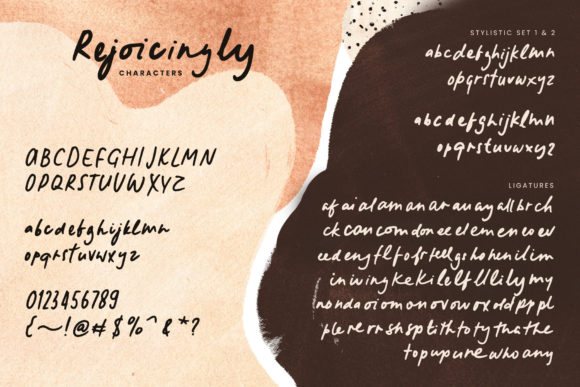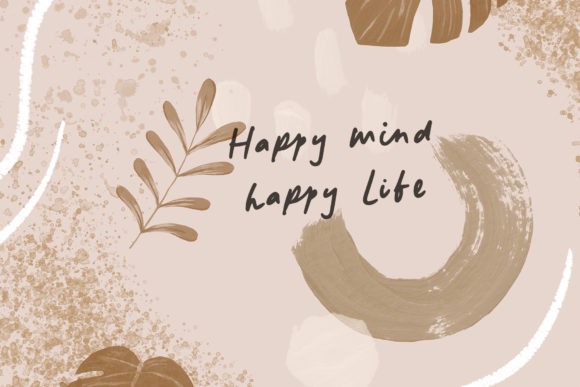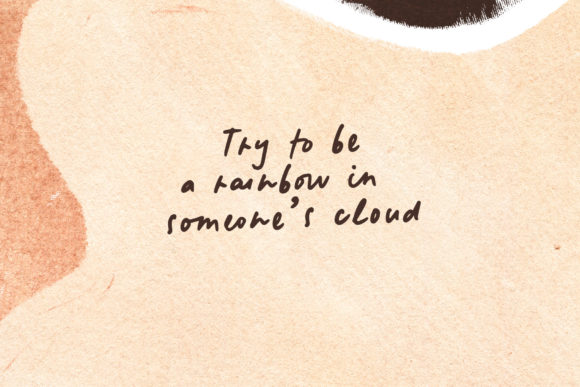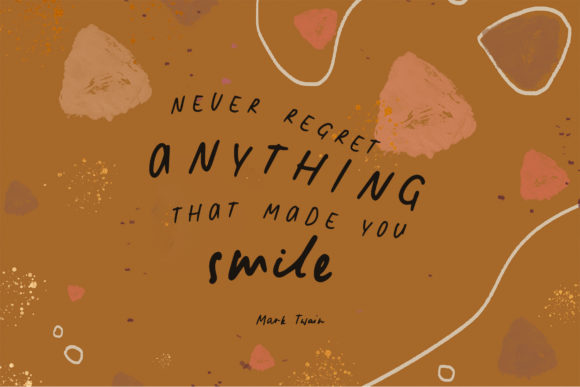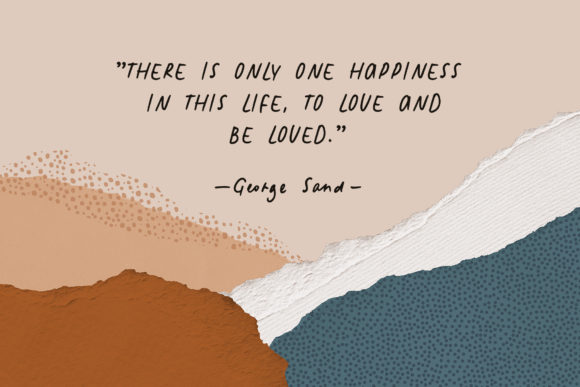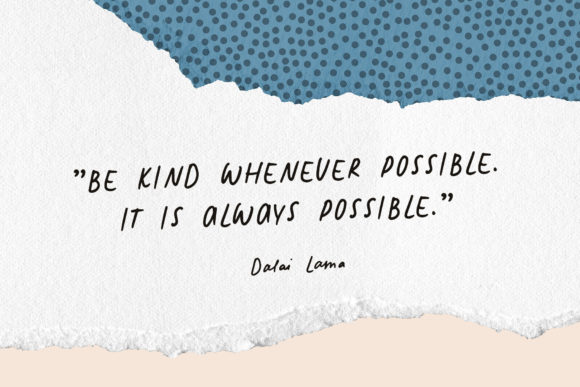
Rejoicingly Font
About Rejoicingly Font
Rejoicingly is a beautiful, well balanced and vintage styled script font. It is defined by smooth curves and is perfect for fashion branding or editorial designs. Add it confidently to your projects, and you will love the results.